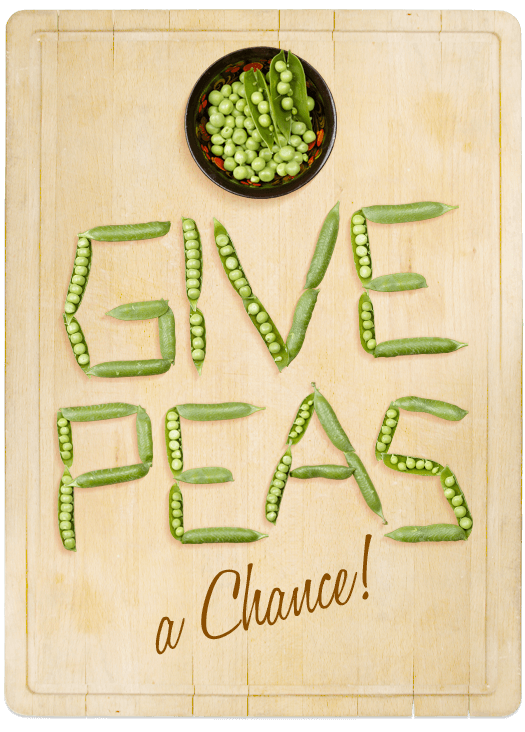
Famous Pea Fonts References
Sweet Pea Font Is A Playfully Elegant Script Font That Features The Endings Of A Brushed Script But Started As Simple Letterform Sketches, Making It A More Playful Shape.
Oh sweet pea font family was designed by bob alonso and published by ba graphics. Buy oh sweet pea desktop font from ba graphics on fonts.com. Sweet pea font is a group member of the script typeface family, the style of this font is a brush.
Sweet Pea Font Family Was Designed By Ronna Penner And Published By Typadelic.
The idea in making this font is the wishful thinking of childhood. Oh sweet pea contains 1 styles and. Oh sweet pea by ba graphics.